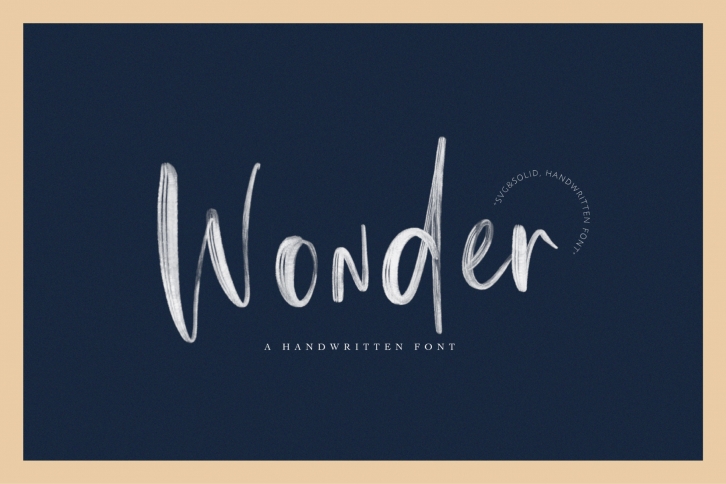
Wonder is a great font that was designed by Paula Type. Imagine the amount of combinations you can create using this font! The archive is 8.58 MB and it was released on September 2, 2019. Wonder looks beautiful on wedding invitations, greeting cards, logos, posters, labels, t-shirt designs, logos, business cards and is perfect for use in ink or watercolor works, fashion, magazines, packaging and food menus, children's books and more!